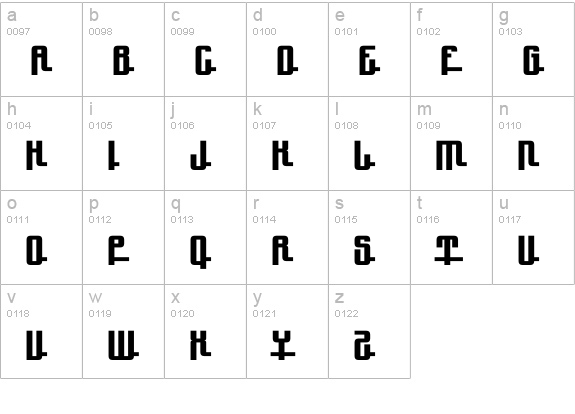
YnduPro Font Details
YnduPro is a modern and stylish font that exudes elegance and sophistication. With its sleek lines and graceful curves, this font is perfect for adding a touch of class to any design project. Whether you're creating a logo, website, or marketing materials, YnduPro will help your text stand out and make a lasting impression. The best part? YnduPro is available for free! You can easily download this beautiful font at FontsMarket.com and start using it in your projects today. Don't miss out on the opportunity to enhance your designs with this stunning typeface. Download YnduPro now and elevate your creative work to the next level.